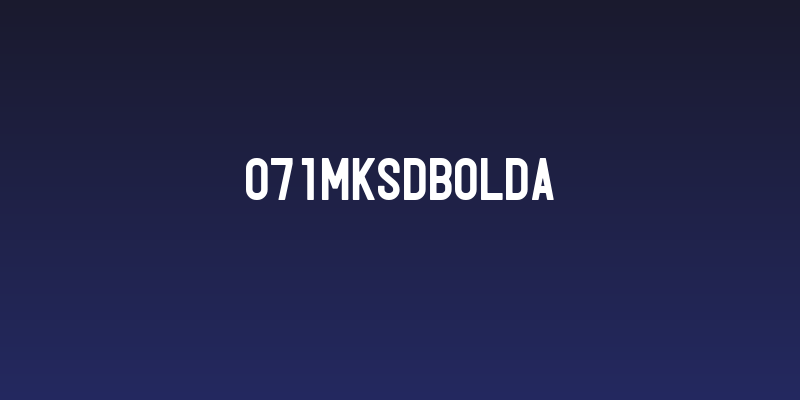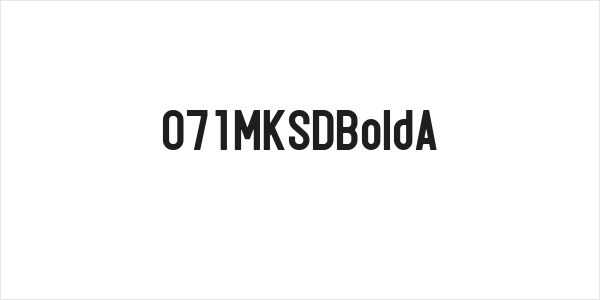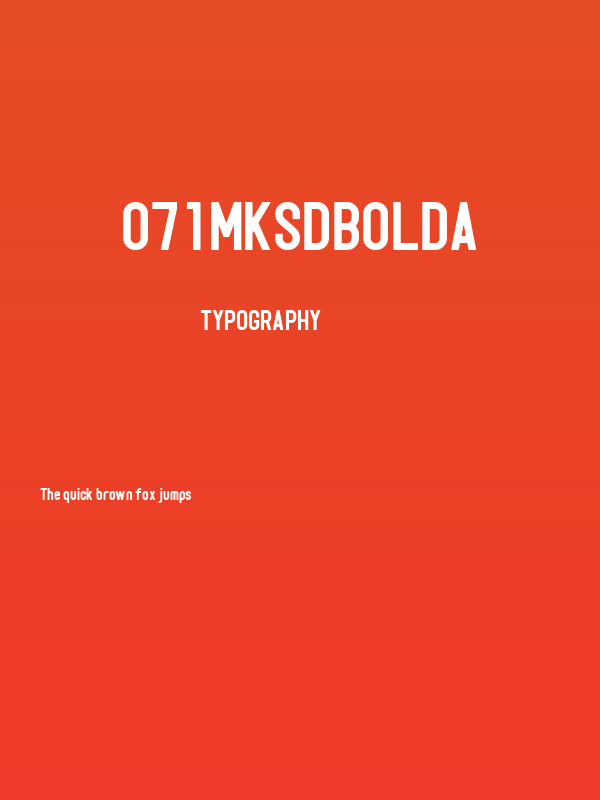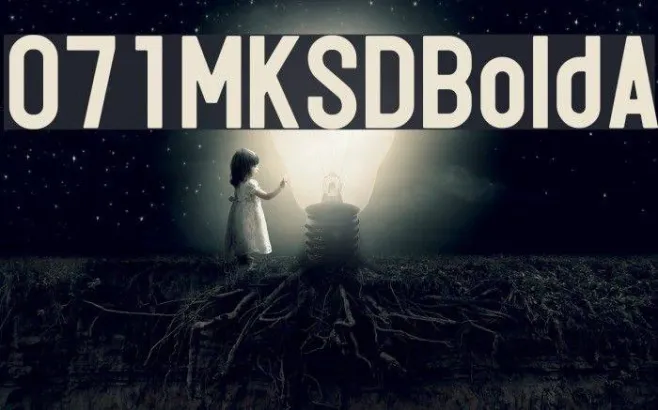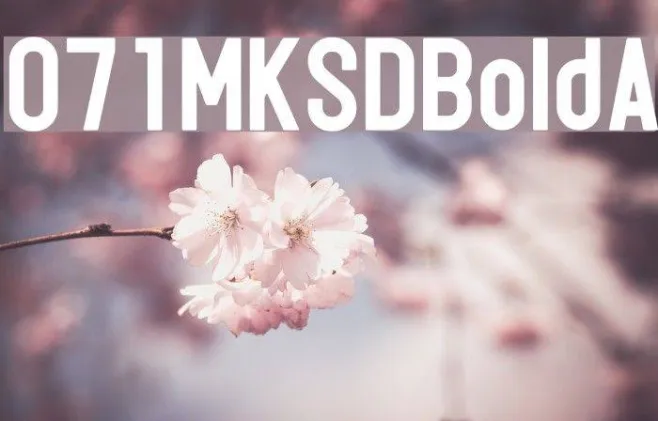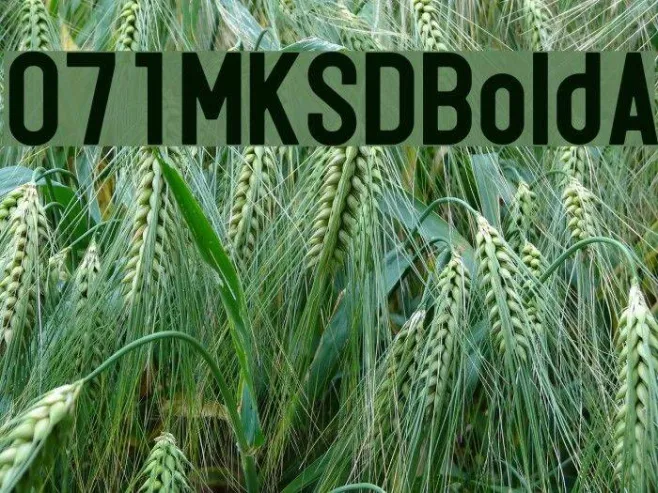
071MKSDBoldA Font
071MKSDBoldA Description
This font features bold, geometric letterforms with a strong presence, making it ideal for impactful designs. The characters are uniformly thick, providing a consistent and solid appearance. The uppercase and lowercase letters maintain a uniform height, contributing to its modern and structured look. The numerals are clear and legible, matching the boldness of the alphabet. Special characters are distinct and well-defined, ensuring versatility in various design applications. The overall style is clean and contemporary, suitable for a wide range of creative projects.
| Proposed Projects | Ideal for branding, headlines, posters, and digital media where a bold statement is needed. |